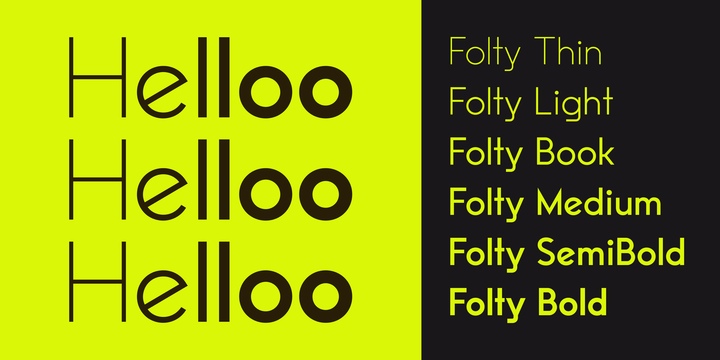
Folty Font
Folty Font is perfect for playful children's brands, whimsical toy companies, creative family entertainment, cheerful educational programs, fun craft workshops, and joyful celebration services. Its delightful character makes it ideal for children's bookstores, playful daycare centers, fun learning apps, cheerful party planning, creative kids' workshops, and any project requiring playful charm with childlike wonder and innocent joy appeal.
This font is exciting because it captures the pure innocence and boundless creativity of childhood while delivering exceptional functionality for brands dedicated to nurturing imagination, learning, and the magical world of play. The playfully crafted letterforms bounce with the same energy and enthusiasm that children bring to everything they do, creating typography that feels genuinely fun and resonates with both children and adults who appreciate the importance of play and creativity.
The Folty Font family typically includes Light, Regular, Medium, and Bold weights with playful alternates, fun-loving ligatures, and cheerful decorative elements that enhance its joyful personality. This comprehensive collection enables family professionals to create engaging brand systems that maintain playful authenticity while offering flexibility for various child-focused applications requiring both innocent appeal and contemporary family market positioning.
Whether you're developing identity systems for children's services, creating materials for educational play programs, or designing promotional content for family entertainment venues, Folty Font Free Download delivers the playful charm and innocent joy that connects with families seeking fun, educational, and creative experiences for children. Its cheerful presence ensures memorable brand recognition across digital platforms and print materials, making it perfect for websites, mobile applications, and family campaigns that celebrate childhood creativity, playful learning, and the transformative power of imagination with contemporary family standards and authentic playful delight.